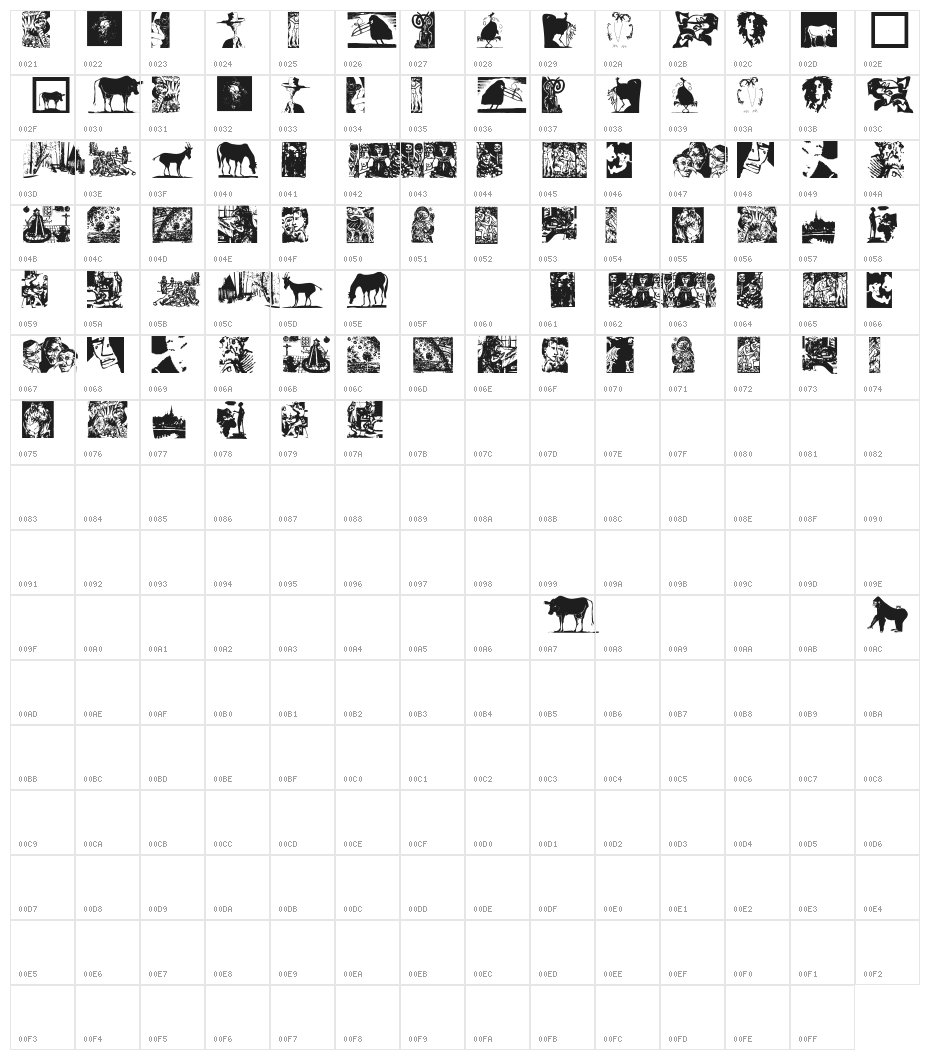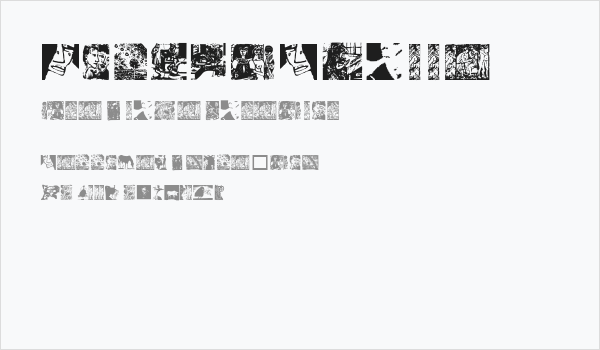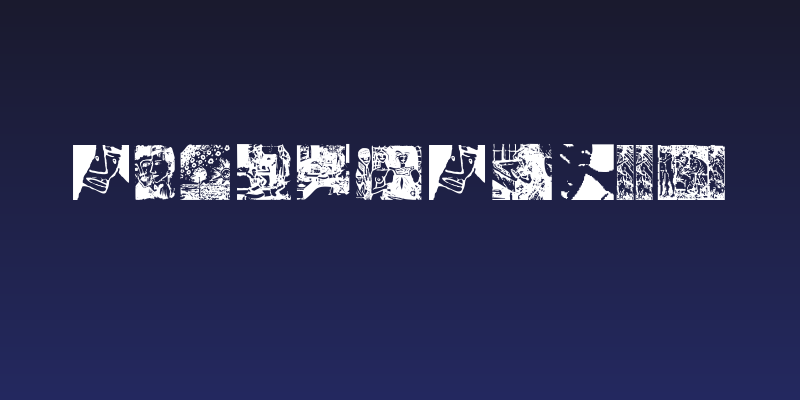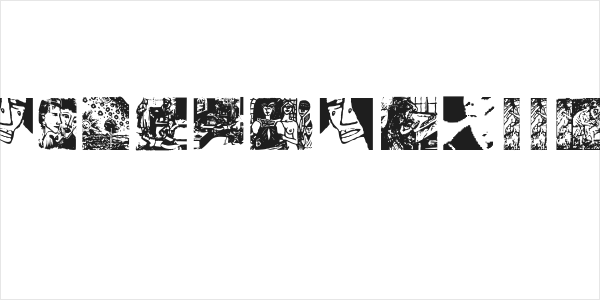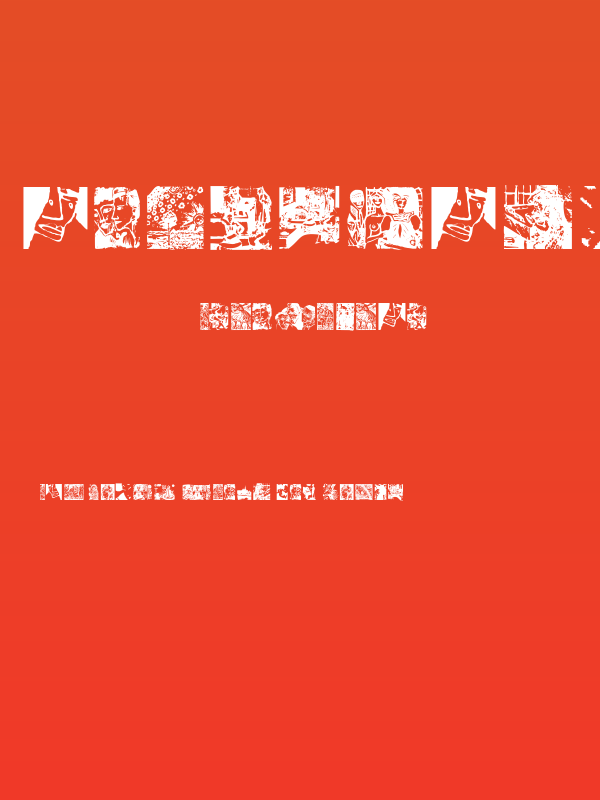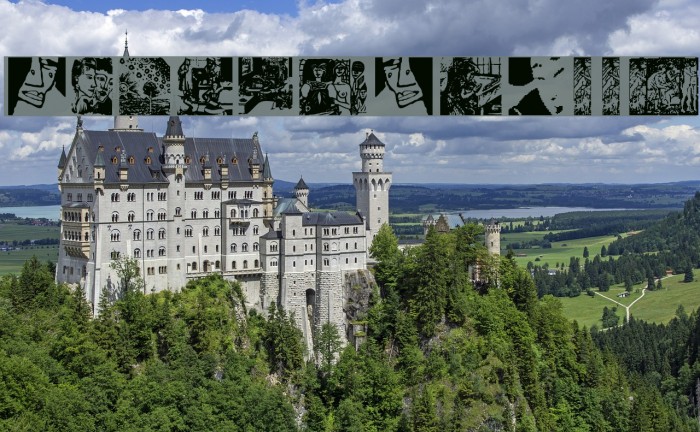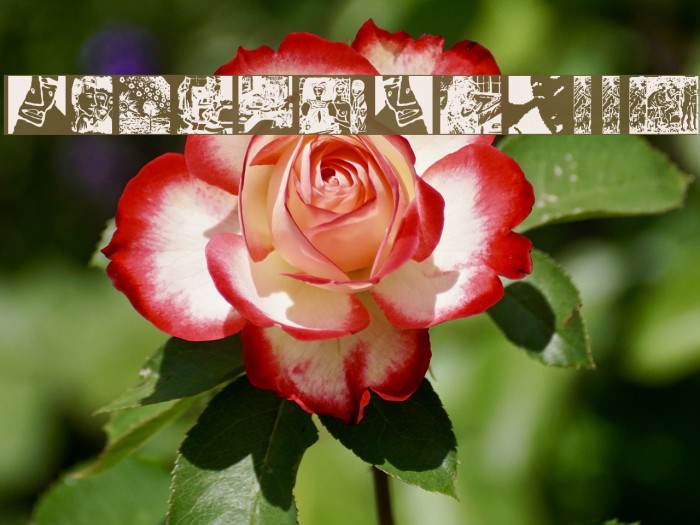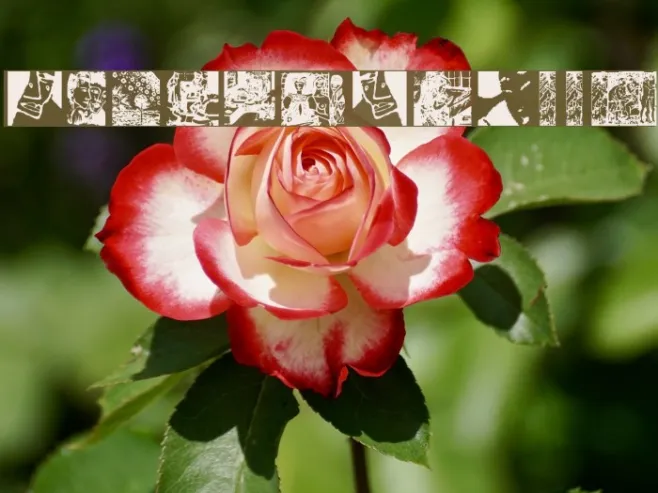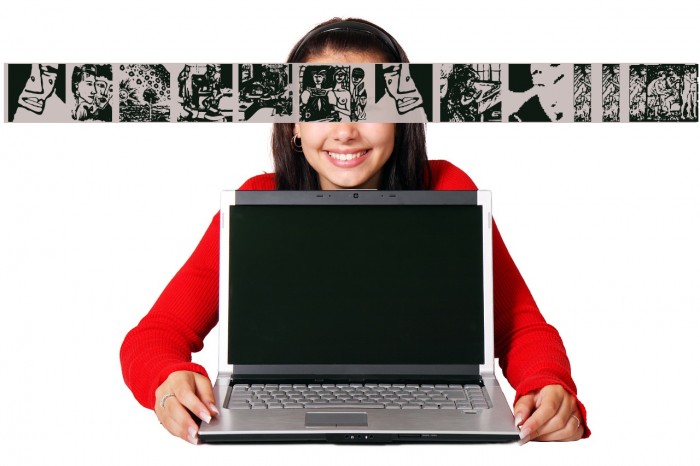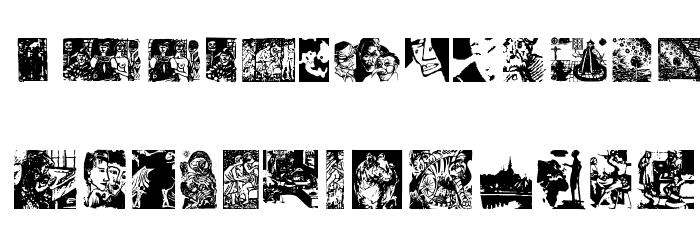
HolzSchnitte Font
HolzSchnitte Description
A highly decorative and illustrative typeface where each character is represented by a detailed woodcut-style image, featuring expressive scenes, animals, and figures in bold black and white contrast.
| Overall Style | Decorative, Artistic, Vintage |
| Use Case | Display, Posters, Artistic titles, Themed graphics |
| Proposed Projects | Book covers, posters, art projects, album art, editorial illustrations, themed event graphics. |